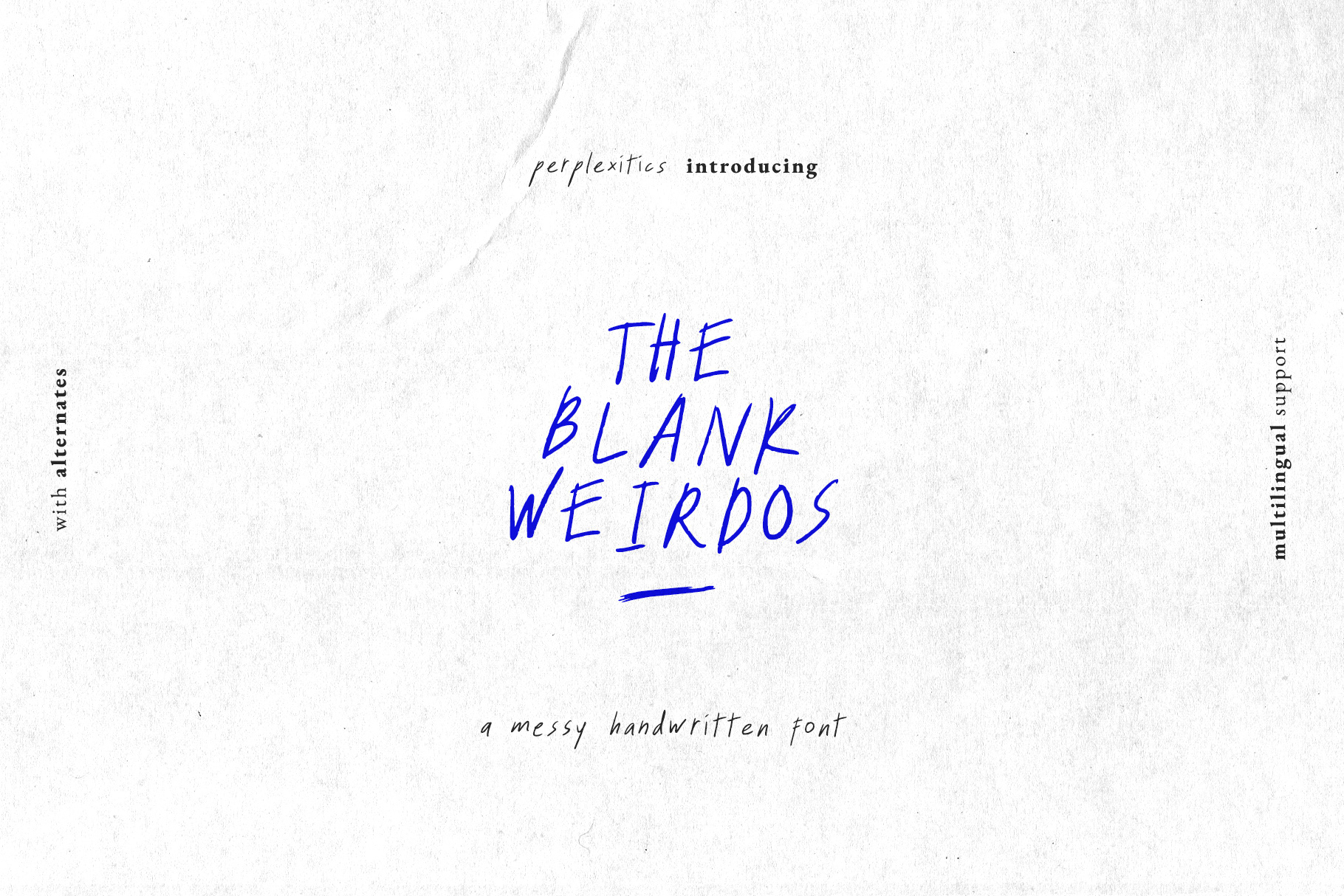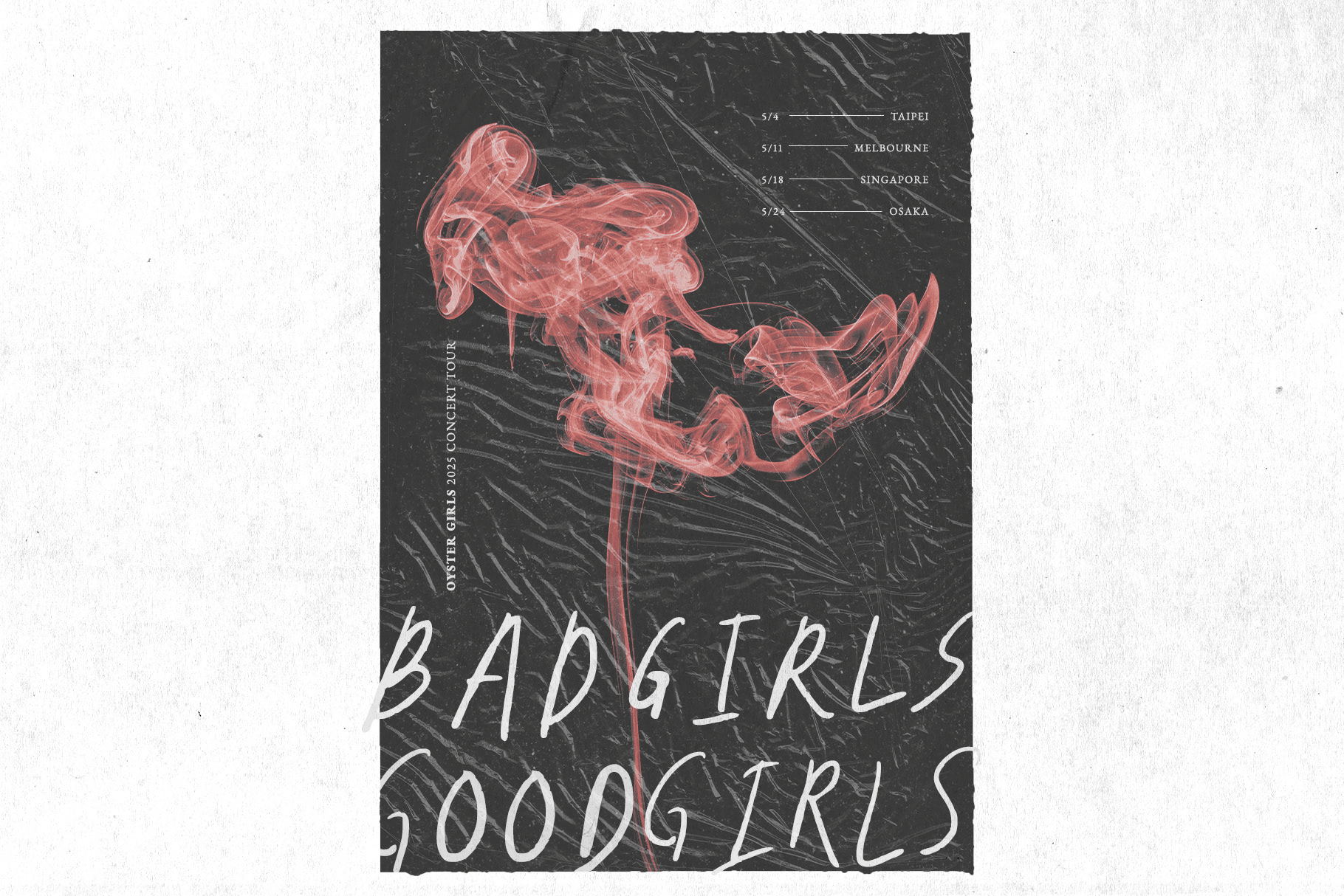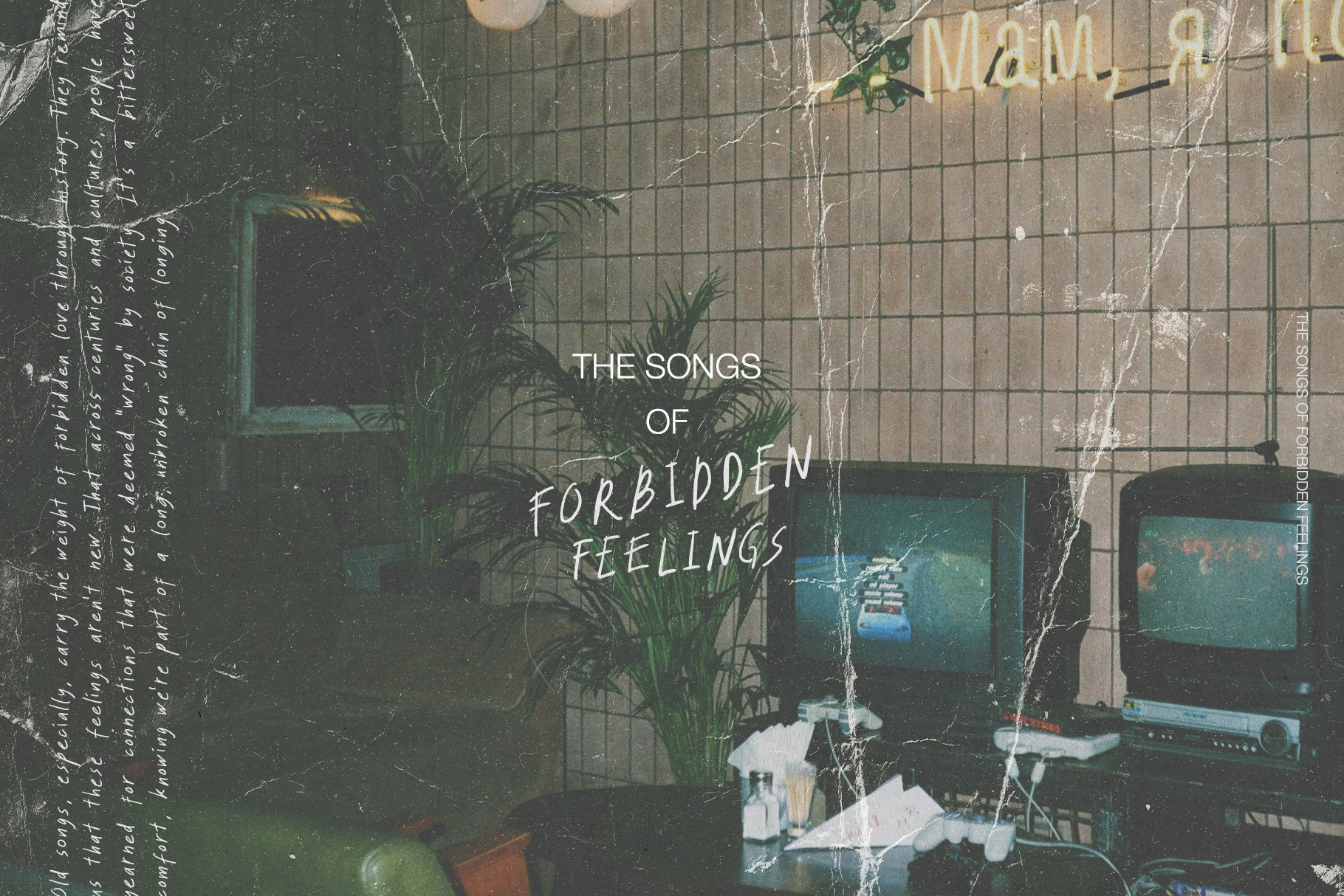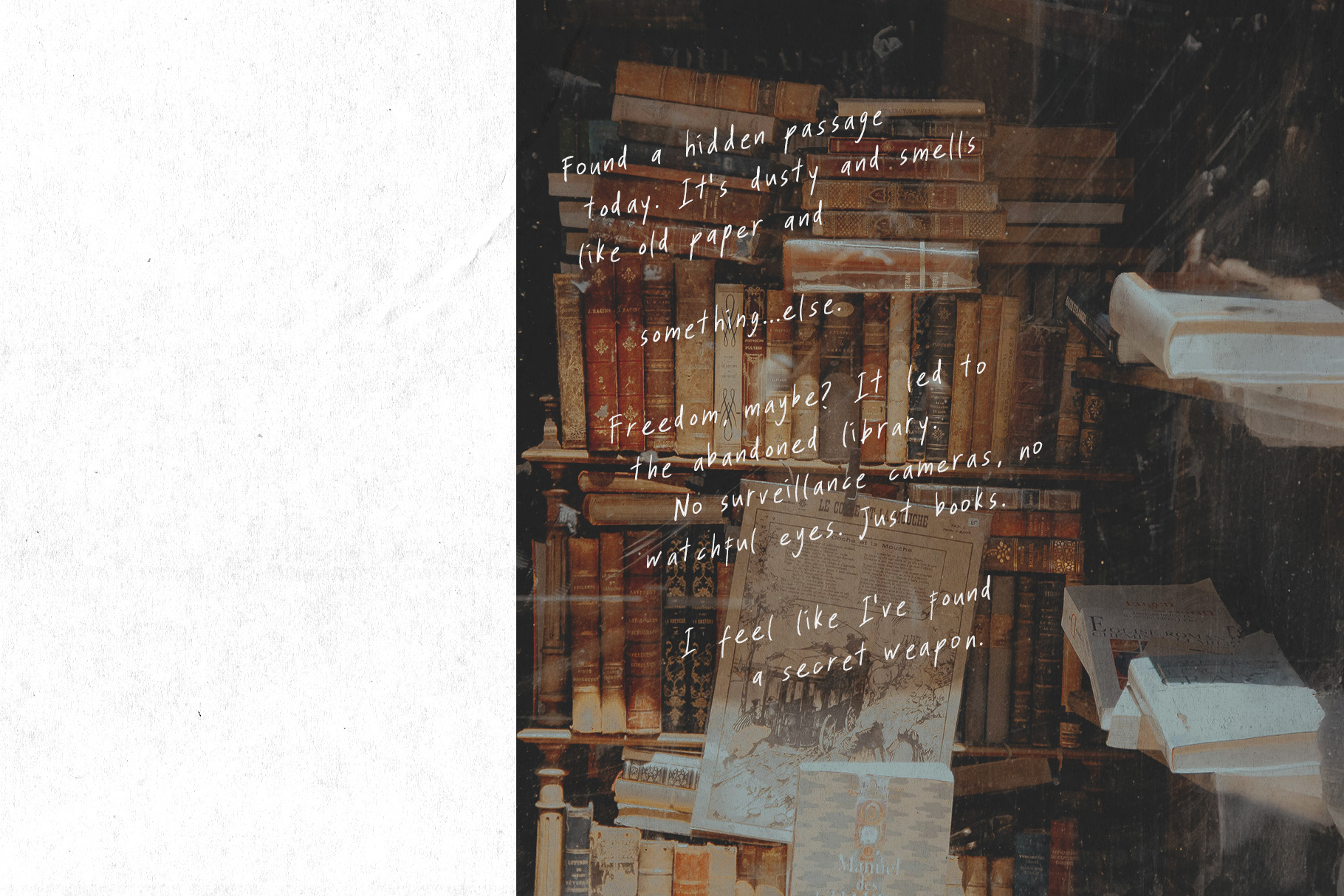
The Blank Weirdos Handwritten Font
The Blank Weirdos is an organic messy handwritten font that conveys a sense of spontaneity. The Blank Weirdos Handwritten Font is packed with everything you need, including uppercase and lowercase letters, numbers, and punctuation. Multilingual support.​​​​​​​